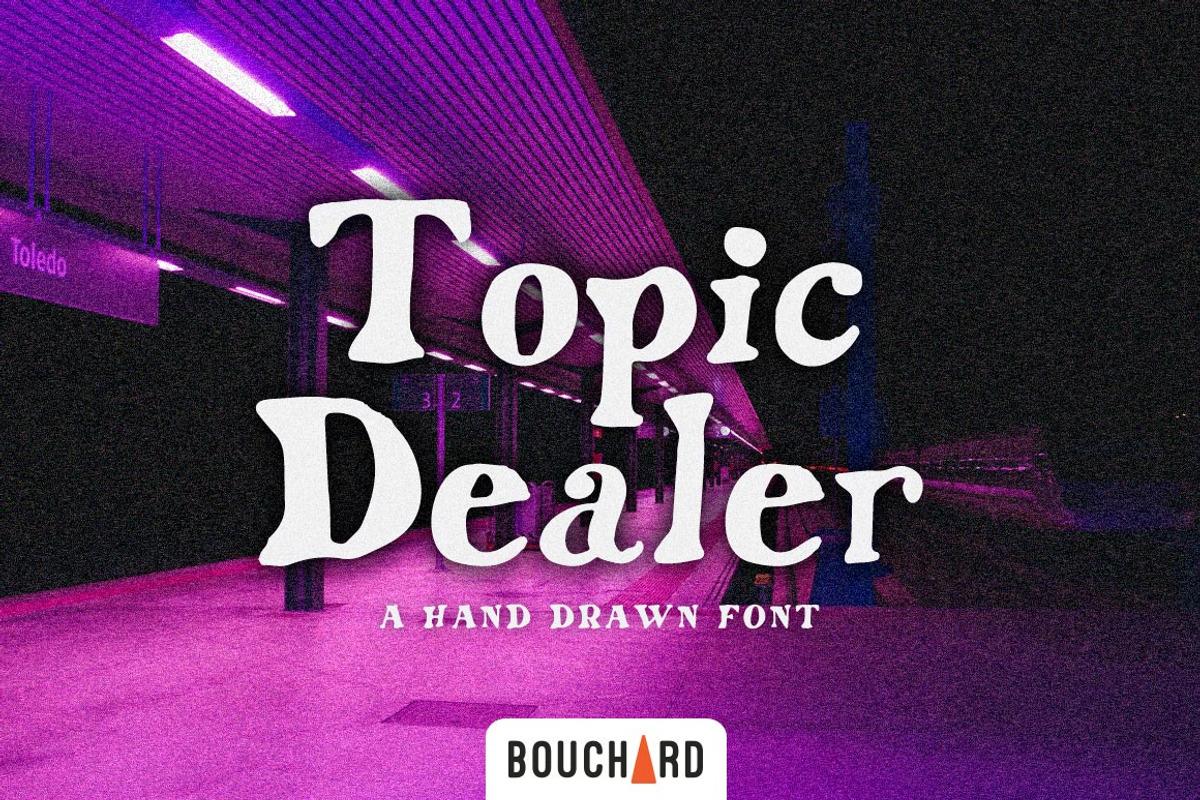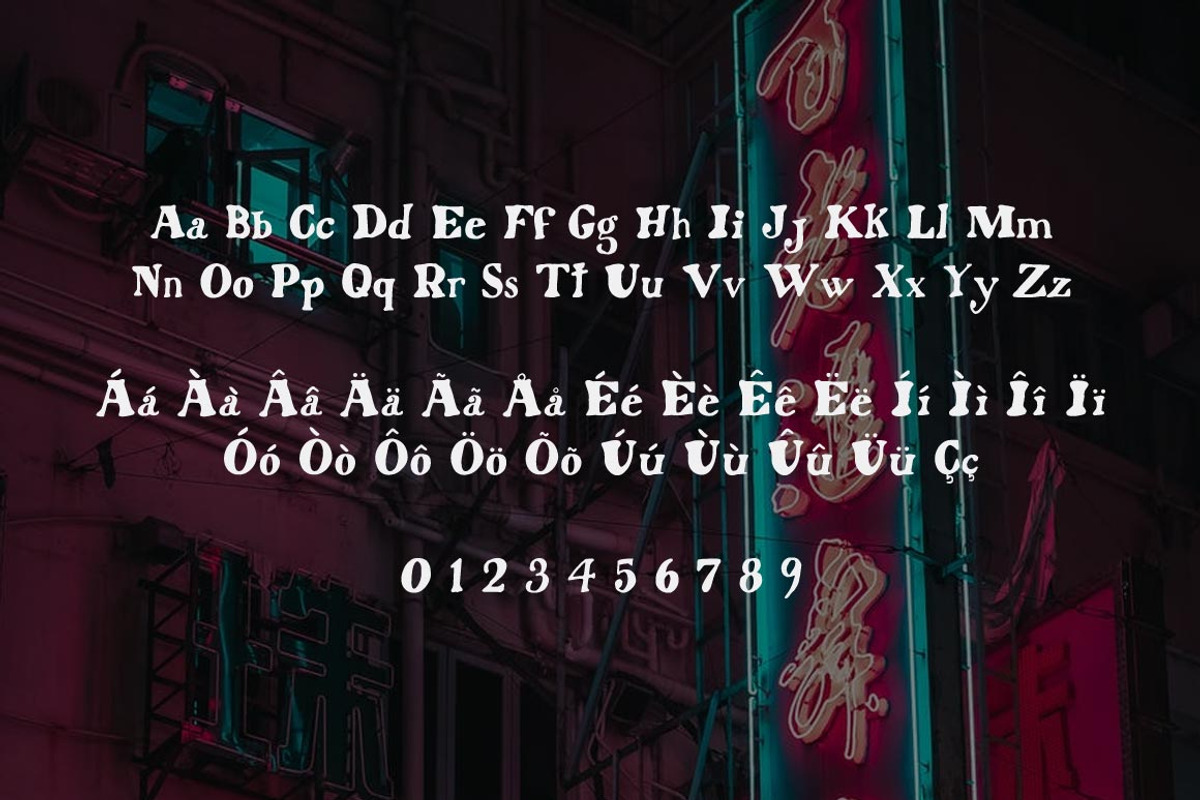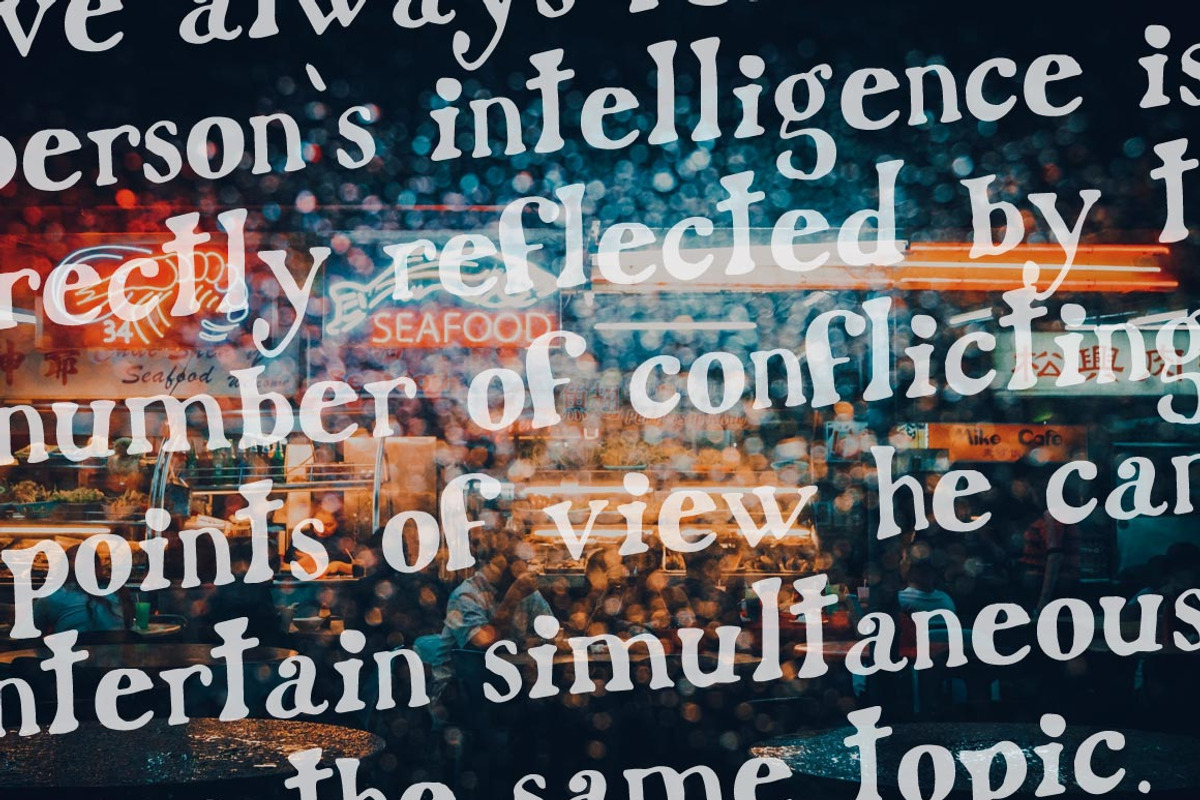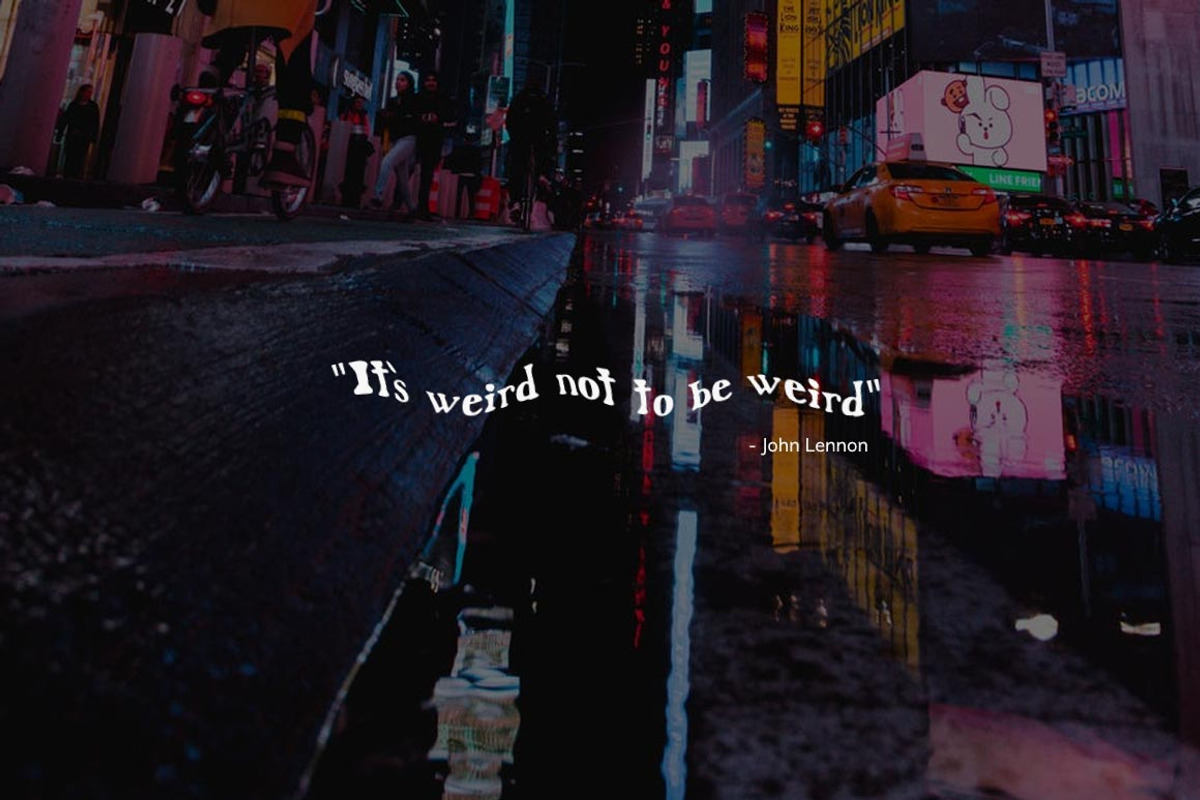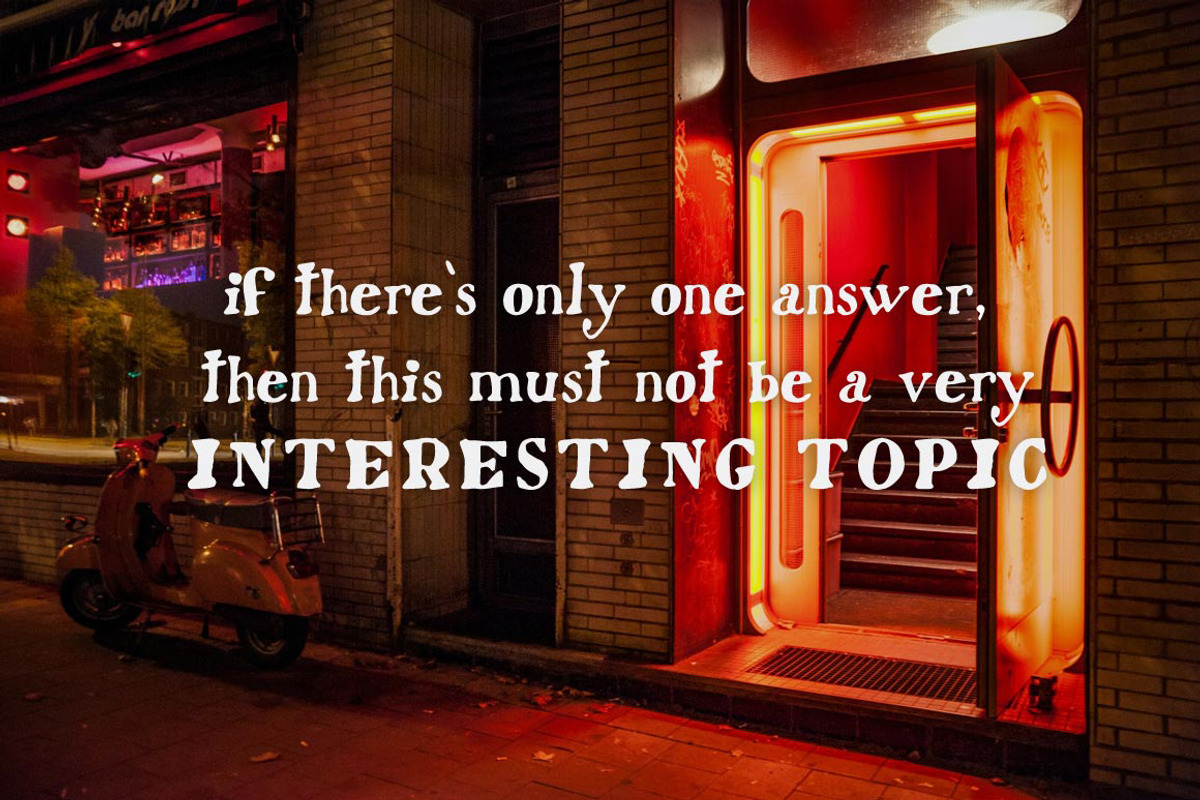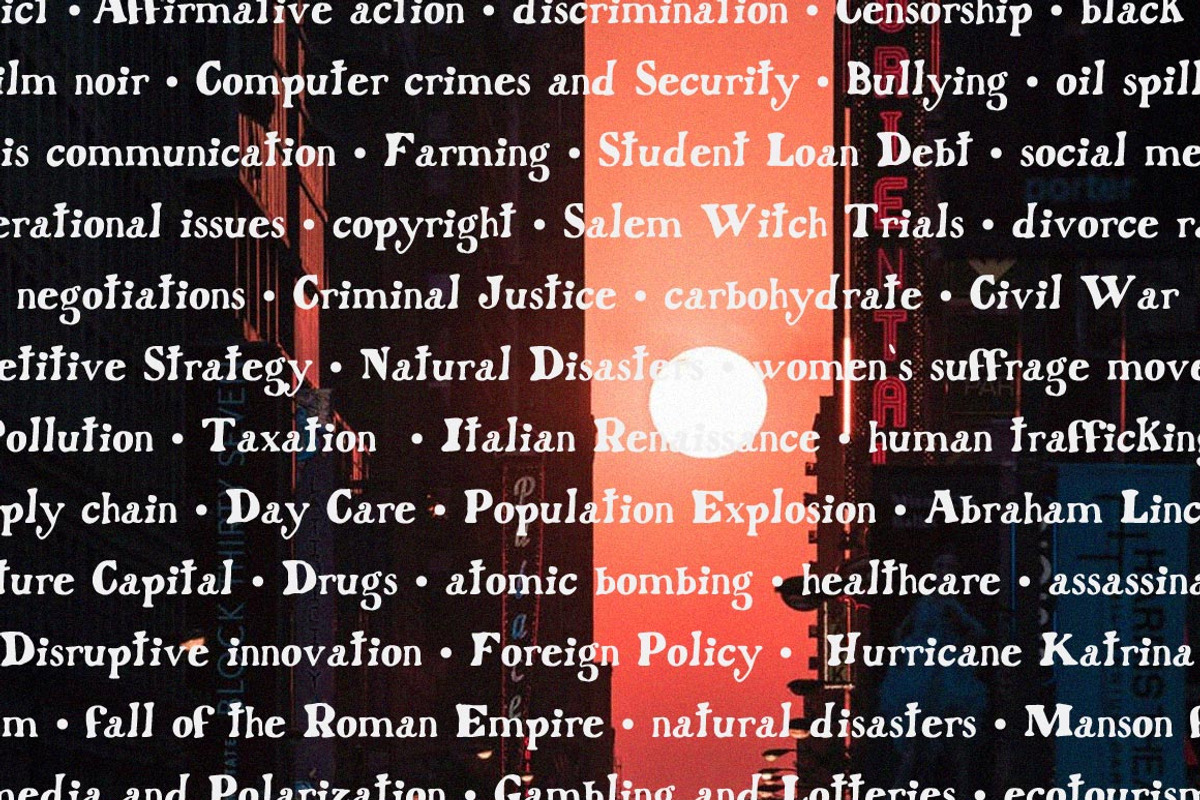
Topic Dealer - Hand Written Font
Topic Dealer is a hand drawn, grungy display font that comes in uppercase and lower case and includes accents, numbers and punctuation.
Perfect for logo designs, packaging, book covers or any other designs that benefit from bold headings.